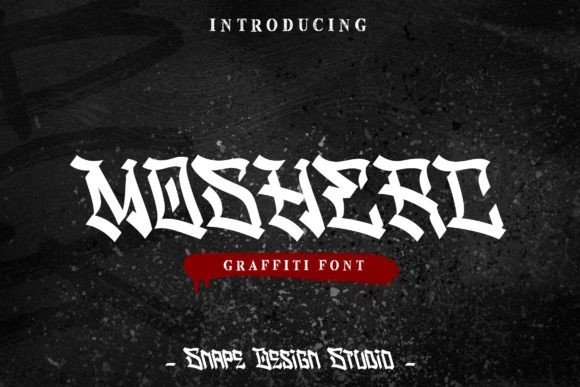
In a world where streetwear reigns supreme, where fashion and art collide, allow us to introduce you to Mosherc Font, the ultimate display font for your creative endeavors. This remarkable font family, designed by the talented snapedsgn, is not just a collection of letters; it's a gateway to the vibrant, edgy world of street art.
Picture this: bold, graffiti-inspired characters dancing across your designs, captivating your audience with their raw, urban energy. Mosherc Font is the perfect tool to express yourself, to make a statement, and to leave an unforgettable mark in the world of streetwear fashion.
Step into the realm of creativity and let Mosherc Font guide you. Its carefully crafted characters, reminiscent of street art calligraphy, will inject an authentic, rebellious spirit into your designs. Whether you're creating striking logos, eye-catching posters, or edgy apparel, Mosherc Font will elevate your work to new heights, making it stand out from the crowd.
With Mosherc Font by your side, you'll become a part of a movement, a revolution in streetwear design. Embrace the urban culture, channel the energy of the streets, and let your creativity flow freely. Mosherc Font is more than just a font; it's a testament to the power of self-expression, a celebration of individuality, and a gateway to a world where anything is possible.